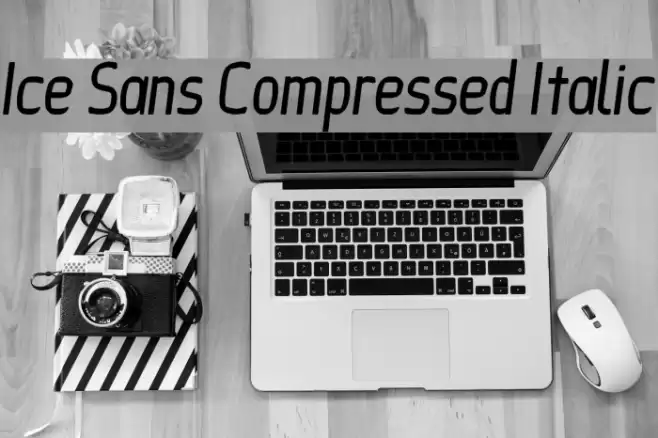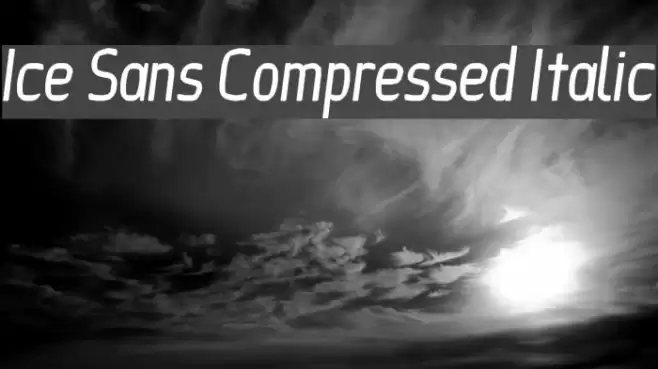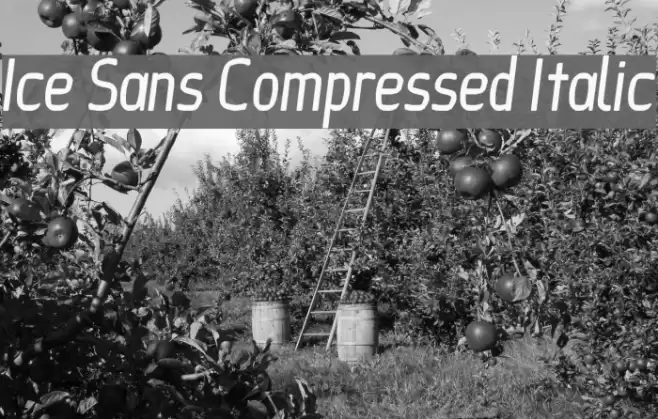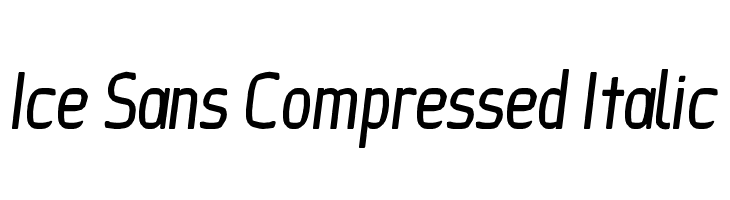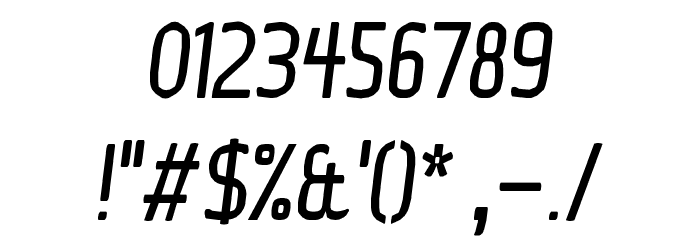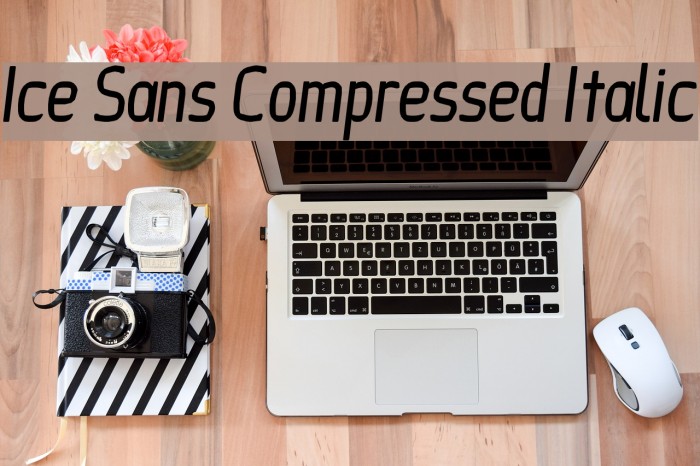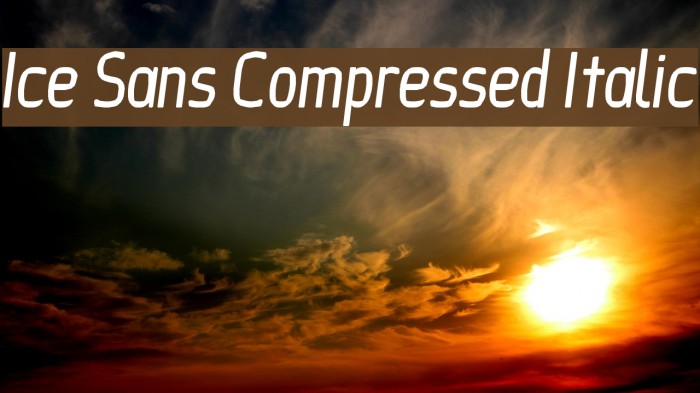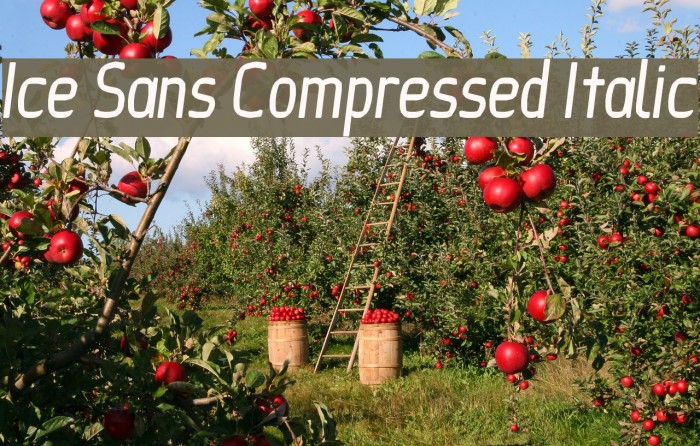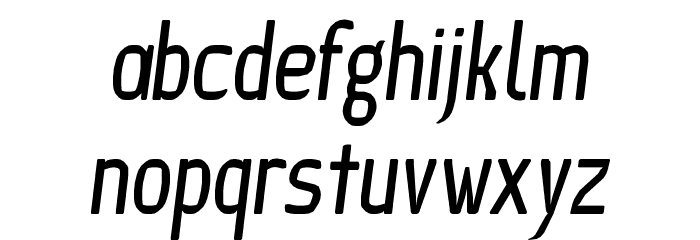
Ice Sans Compressed Italic Font
Ice Sans Compressed Italic Description
This font features a sleek, modern design with a compressed and italicized style. The characters are elongated and slightly slanted, giving a sense of motion and dynamism. The sans-serif structure ensures a clean and uncluttered appearance, making it suitable for contemporary design projects. The uniform stroke width across characters provides a cohesive look, while the tight character spacing enhances its compactness. The font maintains readability despite its condensed form, making it versatile for various applications.
A modern, compressed, and italic sans-serif font with a sleek design from Uncategorized fonts.
- Character Spacing: Tight